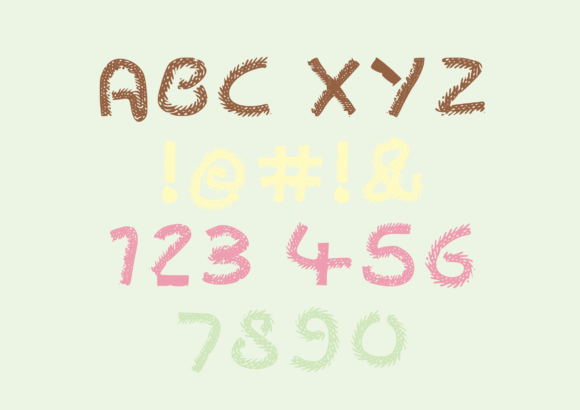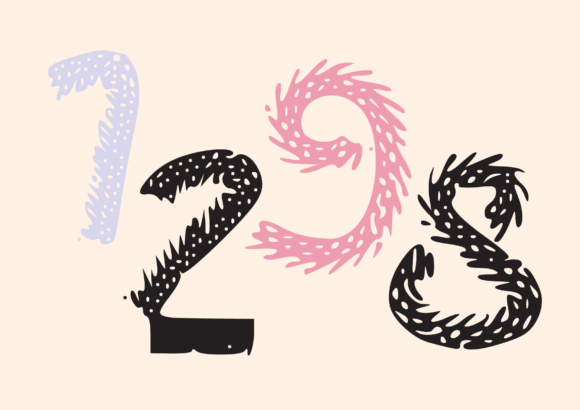
Introduction to Child’s Book Texture Font
Child’s Book Texture is a fun display font based on the texture of old, rough paper found in a classic children’s story book.
Add a playful touch to your designs with this unique font .
Key Features of Child’s Book Texture Font
Why Choose Child’s Book Texture Font?
Child’s Book Texture Font offers exceptional quality and versatility, making it a valuable addition to your design toolkit. Whether you’re creating for personal projects or commercial use, Child’s Book Texture Font delivers professional results.